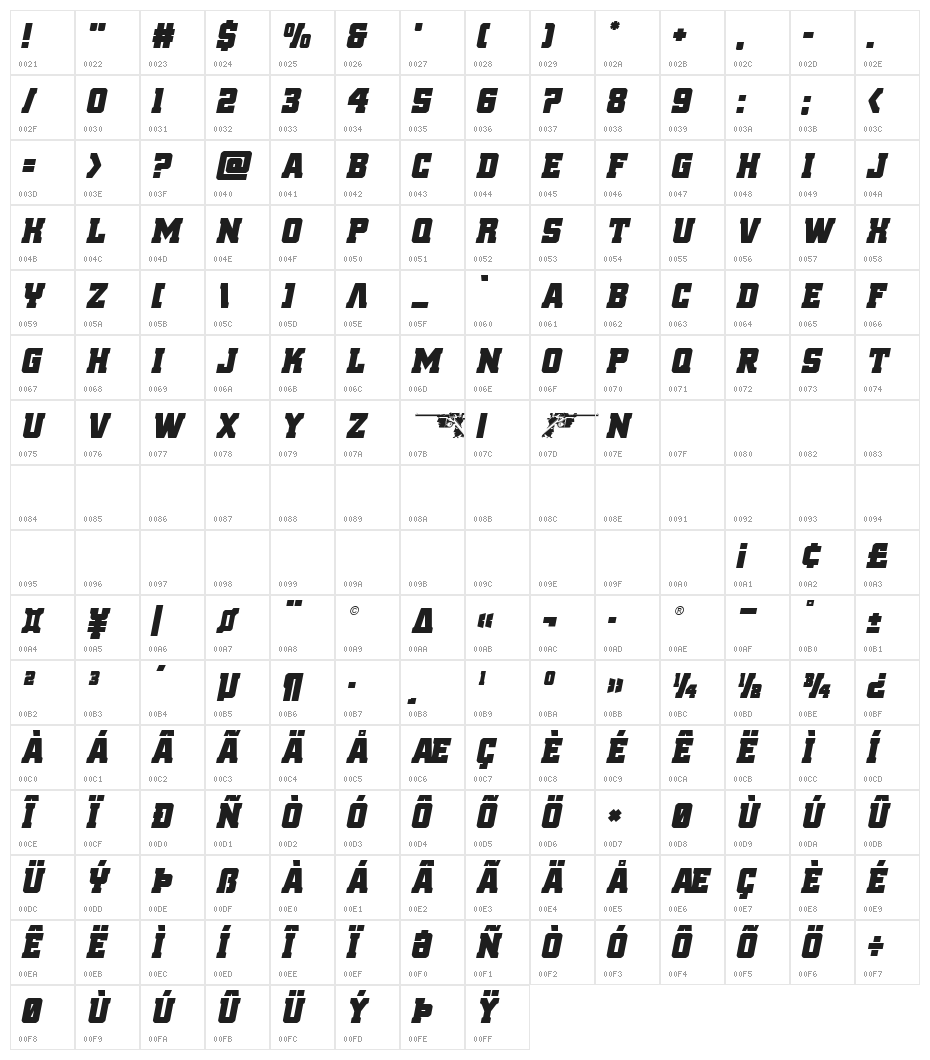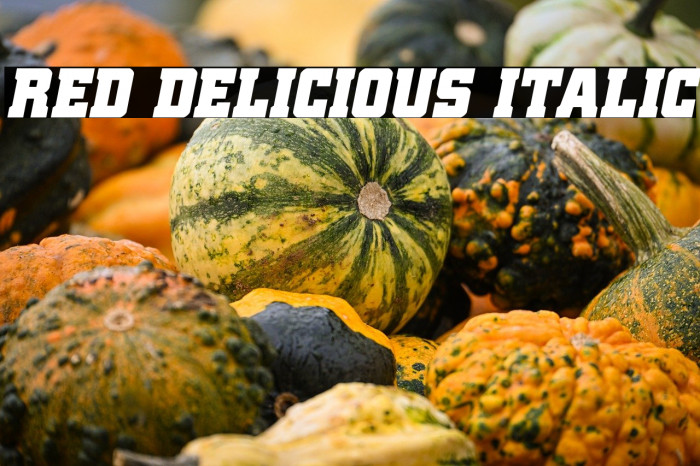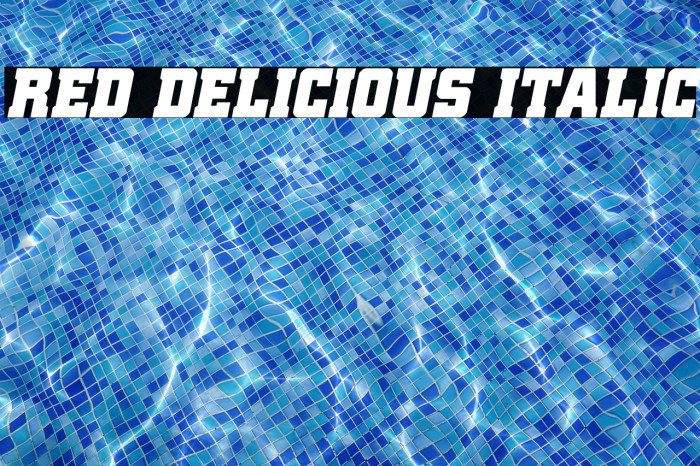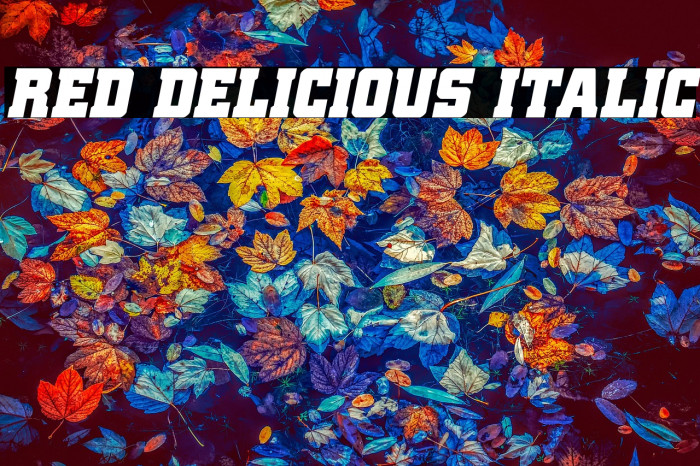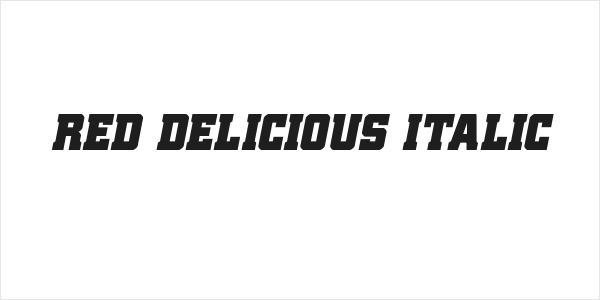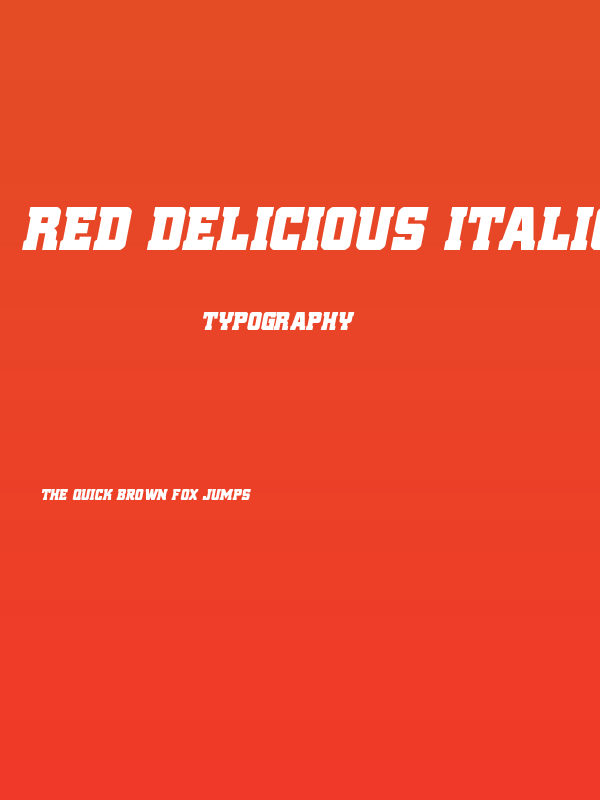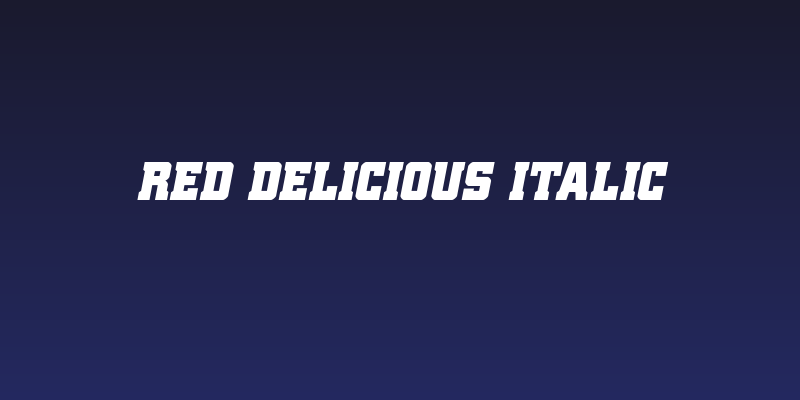
Red Delicious Italic Font
Red Delicious Italic Description
This font features a bold, italicized style with a strong presence, characterized by thick, blocky letters that convey a sense of power and impact. The uppercase and lowercase letters are consistent in their boldness, with a slight slant that adds dynamism and movement. The numbers and special characters maintain this robust style, ensuring uniformity across all symbols. The font's design is modern and assertive, making it suitable for projects that require a strong visual statement. Its bold strokes and italic angle give it a unique flair, perfect for attention-grabbing headlines or branding materials.
Proposed ProjectsIdeal for branding, sports team logos, posters, and dynamic headlines.